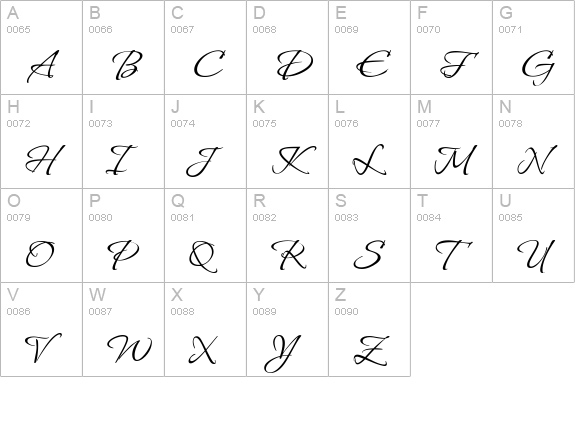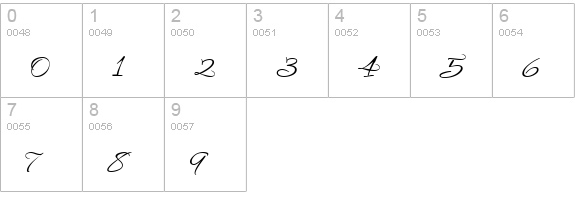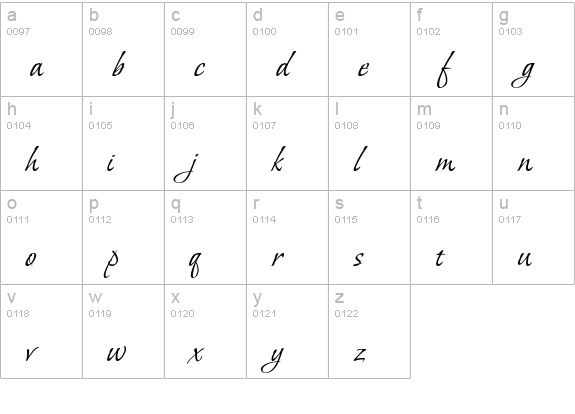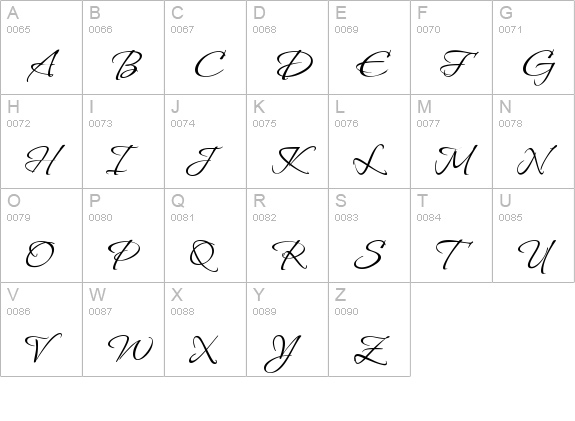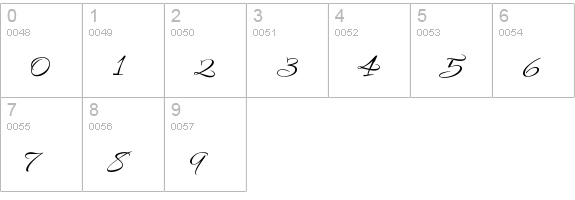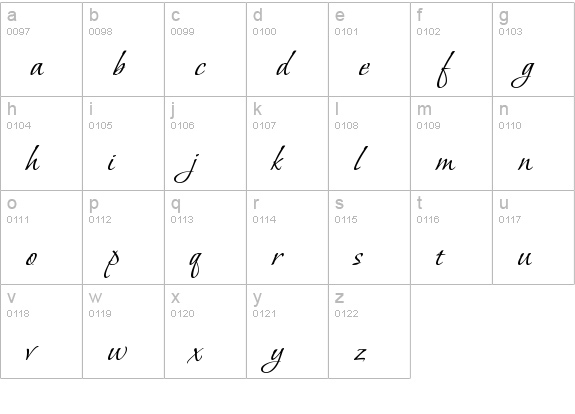
Introducing Vera Crouz, a stunning font that effortlessly combines elegance and versatility. This uniquely designed typeface is the perfect choice for those seeking to make a lasting impression with their designs. Whether you're looking to create sophisticated logos, eye-catching headlines, or captivating text layouts, Vera Crouz offers a seamless balance between modernity and timeless appeal. With its graceful letterforms and subtle curves, Vera Crouz exudes an air of sophistication that is sure to captivate any audience. Each character is meticulously crafted to ensure legibility and visual harmony, making it a highly versatile choice for a wide range of projects. From branding materials to editorial design, this font effortlessly adapts to any creative endeavor, allowing your ideas to truly come to life. But what truly sets Vera Crouz apart is its accessibility. This font is not only visually striking but also freely available to download at FontsMarket.com. This means that designers, artists, and enthusiasts alike can benefit from its exquisite craftsmanship without any financial burden. Now, you can elevate your projects to new heights without compromising on quality or breaking the bank. So, whether you're a seasoned professional or an aspiring creative, Vera Crouz is the font that will take your designs to the next level. Experience the power of elegance and versatility with this remarkable typeface, and let your creativity soar. Don't miss out on the opportunity to download Vera Crouz for free at FontsMarket.com and unlock a world of possibilities for your next design masterpiece.